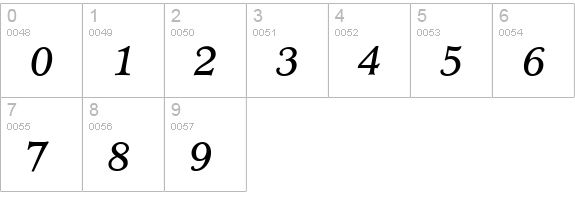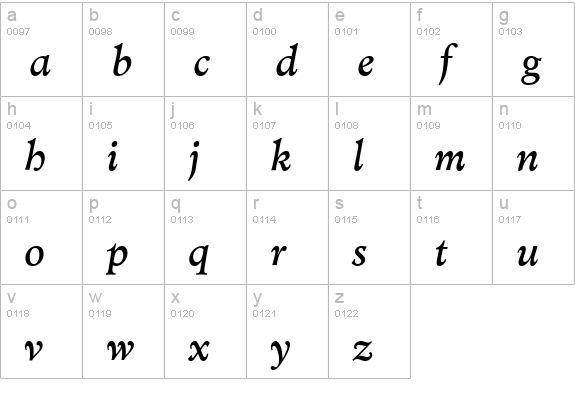
Cleric SSi Italic is a distinctive, italic variant in the Cleric typeface family \xE2\x80\x94 well suited to design and typography projects.
Cleric SSi Italic font is a stunning and versatile typeface that exudes elegance and sophistication. With its sleek and stylish italic design, this font is perfect for adding a touch of class to any project. Whether you are creating invitations, branding materials, or signage, Cleric SSi Italic font will make your text stand out. The best part about Cleric SSi Italic font is that it is available for free download at FontsMarket.com. This means you can easily access this beautiful font and use it in your designs without any cost. Don't miss out on the opportunity to elevate your projects with the timeless charm of Cleric SSi Italic font. Download it today and add a touch of luxury to your creations.